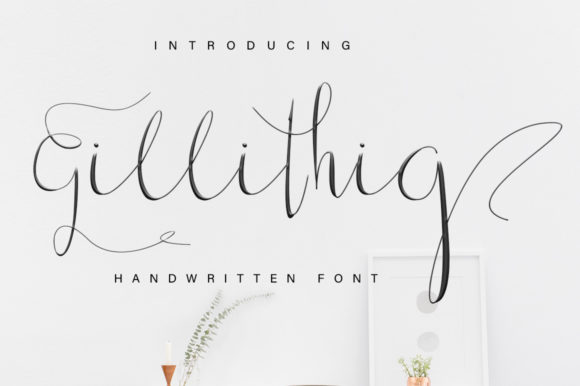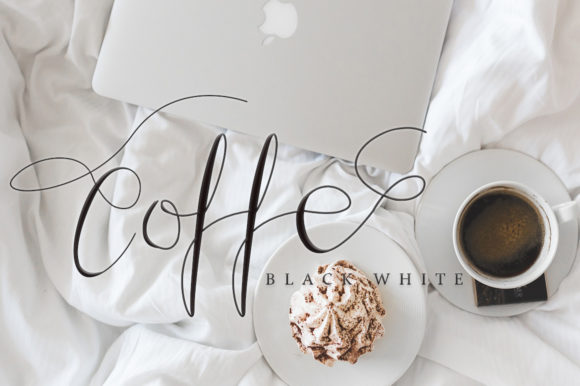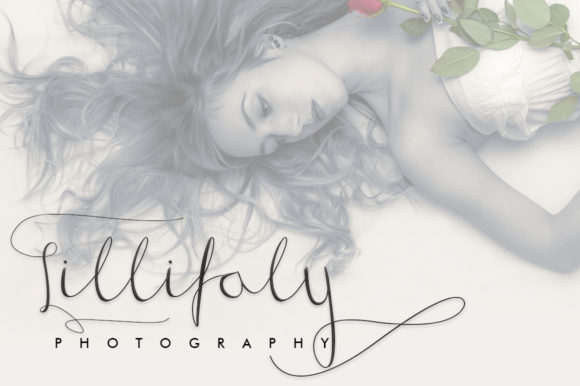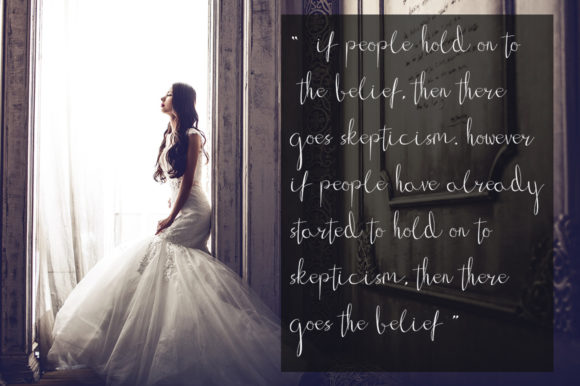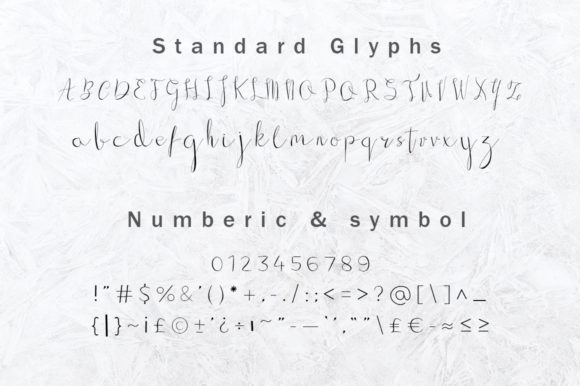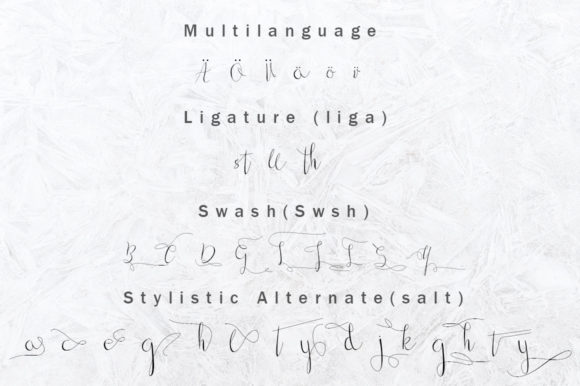
HomeScript FontsGillithig Font Script Fonts Gillithig Font FacebookXPinterestWhatsApp Gillithig Font Poster 2 Gillithig Font Poster 3 Gillithig Font Poster 4 Gillithig Font Poster 5 Gillithig Font Poster 6 Gillithig Font Poster 7 About Gillithig Font Gillithig is a fresh & modern font featuring a handwritten calligraphy style, packed with decorative characters. DOWNLOAD ON CREATIVE FABRICAThis font is sold and delivered by Creative Fabrica. Font Canyon may earn a commission if you buy through this link. People also explored Malovely Font Alessandra Font Algosh Smooter Font Exoinet Font Easter Font Barokah Font Rilsttone Font Brylian Font Esentika Font 310 0 TagsGillithig Font Previous articleSyahara FontNext articleBlastamino Font LEAVE A REPLY Cancel reply Comment: Please enter your comment! Name:* Please enter your name here Email:* You have entered an incorrect email address! Please enter your email address here Website: Save my name, email, and website in this browser for the next time I comment. Personal Use Free Royal Bengal Tiger Personal Use Free Read more about this font Winter Soldier Personal Use Free Read more about this font Bashira Personal Use Free Read more about this font The Bocah Personal Use Free Read more about this font BLOG Best Fonts for YouTube Videos: Make Your Thumbnails Stand Out Best Fonts for YouTube Videos: Make Your Thumbnails Stand Out Choosing the right font can make a massive difference in how your YouTube videos perform.... Exploring Font Trends Top 7 Google Fonts Alternatives for Faster and Privacy-Friendly Web Design (2025) Modern Sans-Serif Fonts That Brands Love in 2025